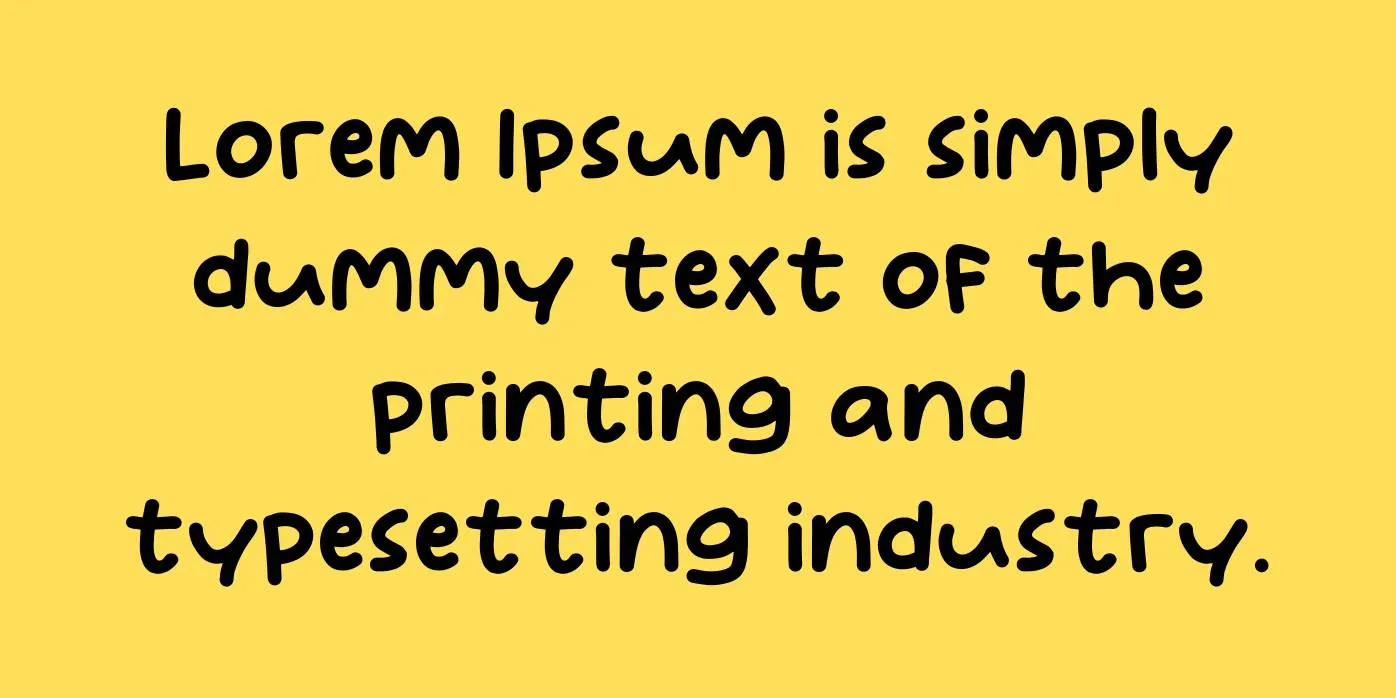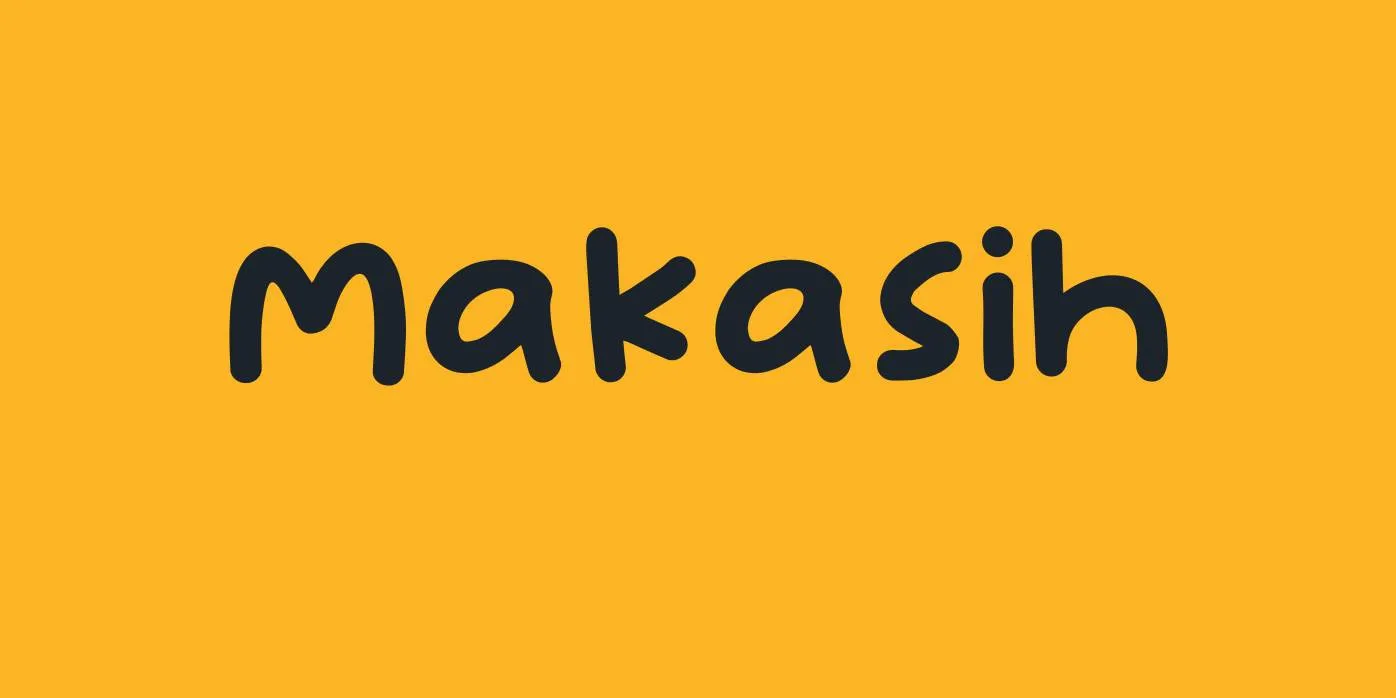
Makasih Font
We discuss detailed information about this amazing font Makasih Font. It is a script font designed by a famous designer Khurasan. The weight of the font is Bold and the width of this font is medium (normal). This outstanding typeface includes various types of alphabet characters such as uppercase, lowercase letters, numbers, punctuations, numbers, and special characters.
It is perfect for all kinds of display purposes and other stylish projects.  The pattern nature of this font is regular and its pitch is not monospaced. Japanese companies used this font in many projects. This elegant typeface can be paired with other fonts like skinny font to give a more attractive look to your projects. An online generator tool also supports this font to change simple text into a stylish look.
The book covers and Magazine designs also look very attractive using this font. Flyers, branding, and blogs can be made using it. It is a web-safe font and many website designs are available for this font. You can use it for both purposes print and digital media.
What is the closest font to Makasih Font? It has so many similar fonts which give a very attractive look when used together but Coronet Font is the most similar font to Makashi font.